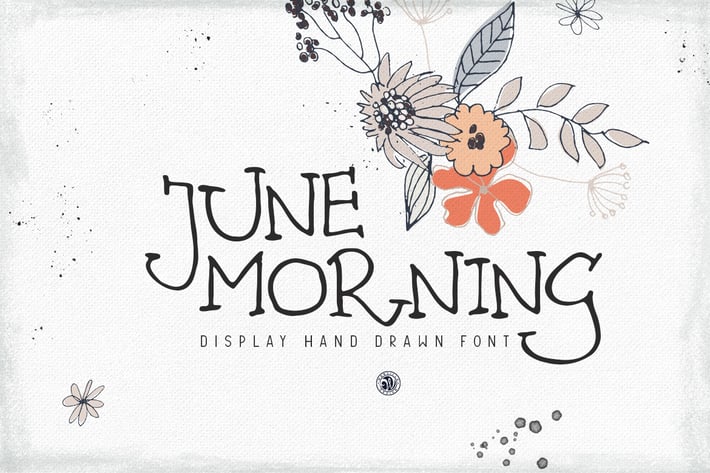
June Morning Font
June Morning font - hand lettering display font. Ideal for invitations, logos, branding, blogs, handmade craft items, scrap booking, printed paper items and more.
- all caps font, numbers, punctuation